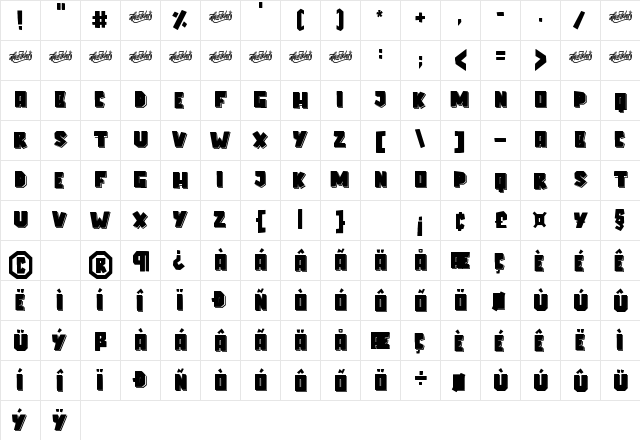
Elcatraz Shadow Regular
Design Context for Elcatraz Shadow Typeface
Elcatraz Shadow brings ornamental detail and strong personality to headlines and identities, where visual impact matters more than quiet functionality.
Font Pairing: Pair with a clean neutral sans-serif for body copy to let Elcatraz Shadow's character lead without overwhelming the composition.
Pro Tip: Use Elcatraz Shadow exclusively at display sizes — it was designed to be seen, not read at length. Let a neutral companion handle body copy.